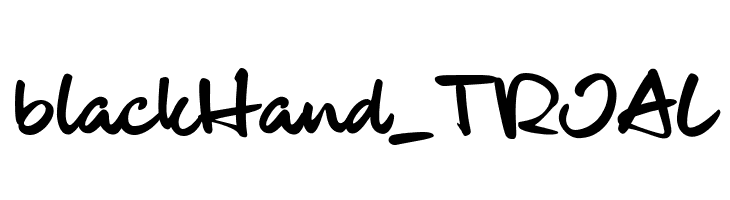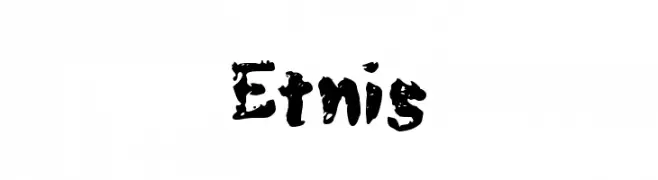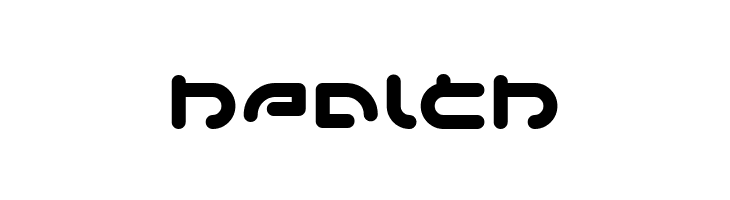
A bold, textured font with a brush stroke appearance, perfect for artistic projects.
A bold, dripping font with a horror-themed, liquid-like appearance.
A dynamic, hand-painted style font with a textured, brush-like appearance.
A futuristic, bold font with geometric, angular letterforms and a modern aesthetic.
Outline icon font featuring tools and weapons as glyphs.
A bold, geometric font with a three-dimensional, urban style.
A dynamic, expressive handwritten font with elongated, fluid letterforms.
A playful, bubbly font with an organic and whimsical design.
An elegant script font with flowing, cursive letterforms and sophisticated style.
A bold, geometric font with a futuristic and industrial style.